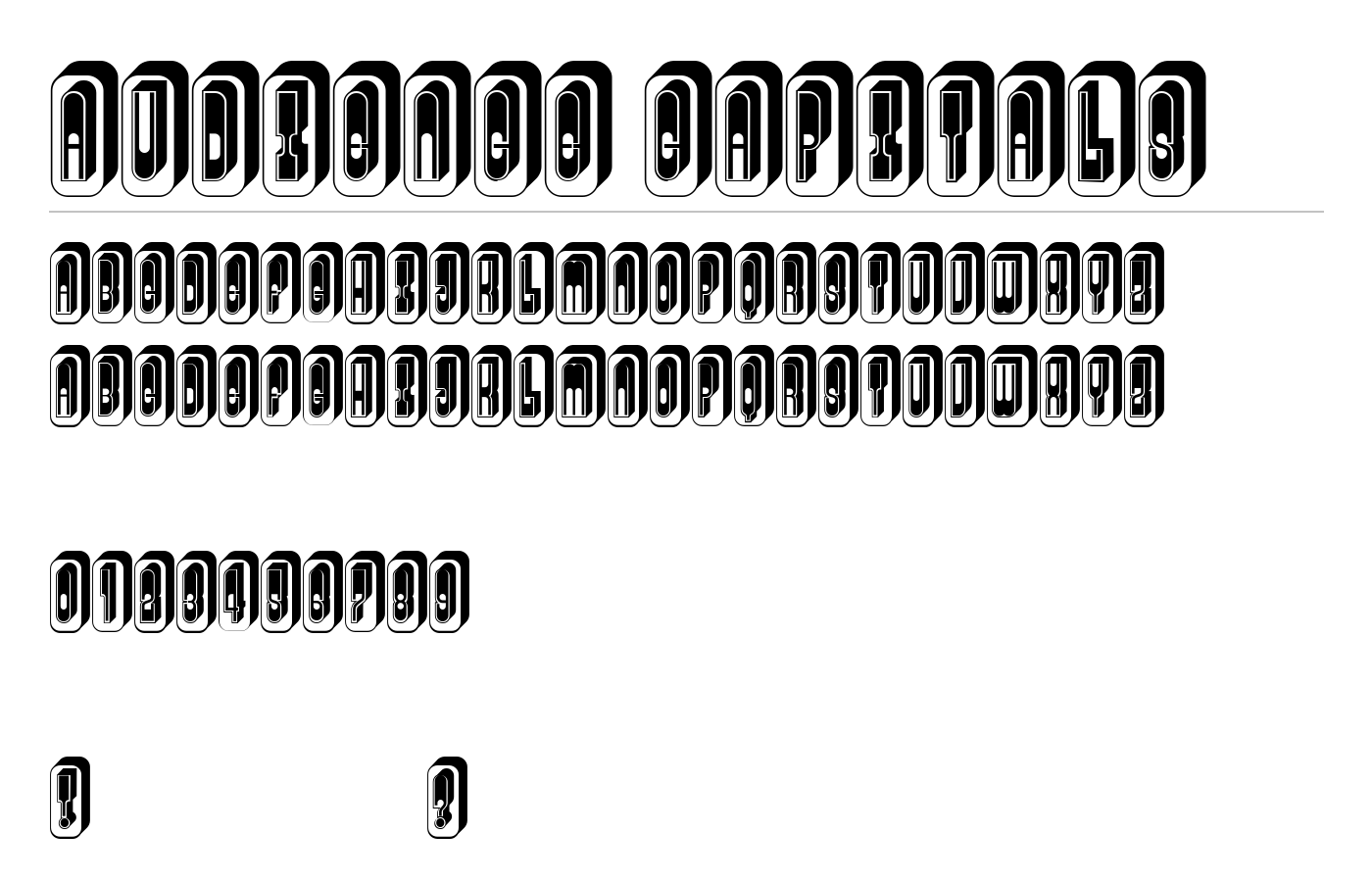
Audience Capitals is a bold, geometric sans serif display font characterized by its thick, rounded rectangular outlines and strong three-dimensional shadow effect. Its condensed uppercase letters and uniform stroke weight give it a retro-futuristic, playful vibe that stands out well in headlines, logos, and posters where visual impact and readability are key. This font works best for branding and creative projects seeking a modern, eye-catching style with a touch of vintage flair.
Audience Capitals Font
About Audience Capitals Font
| Font family | Audience Capitals Font |